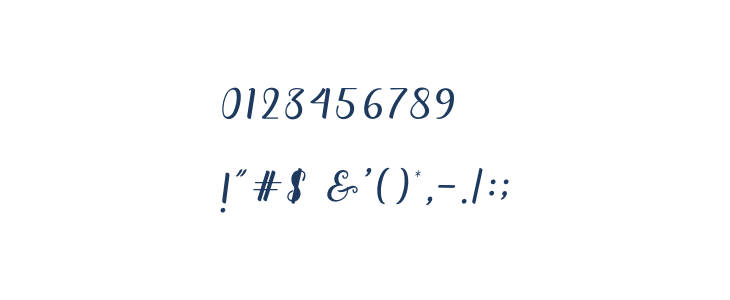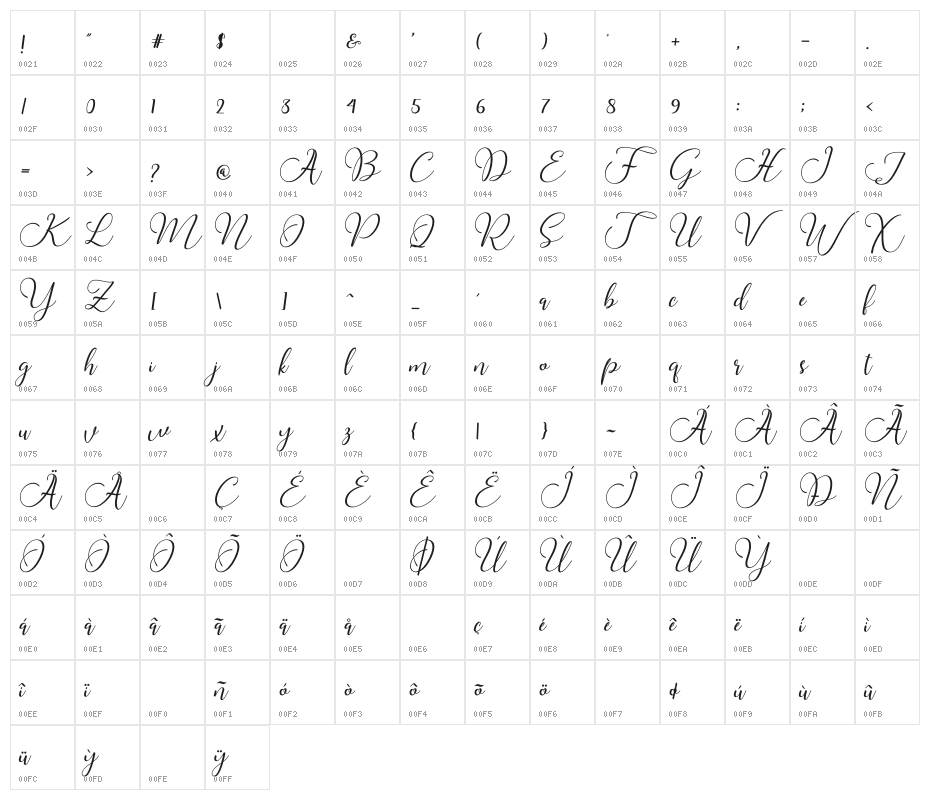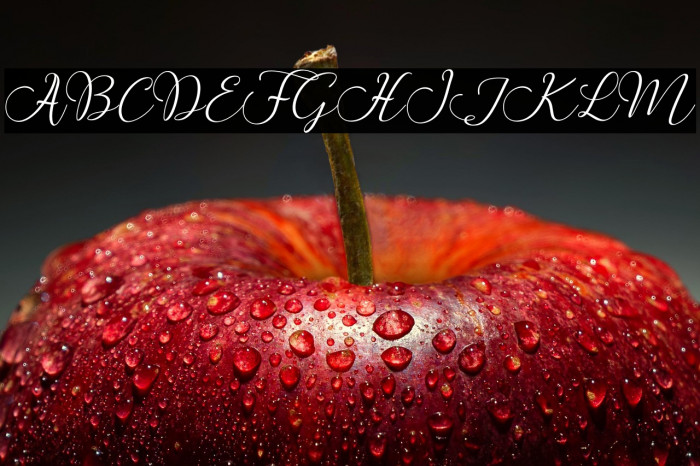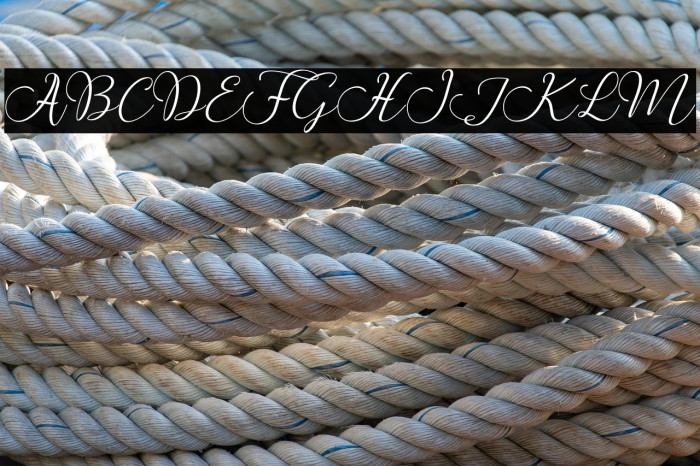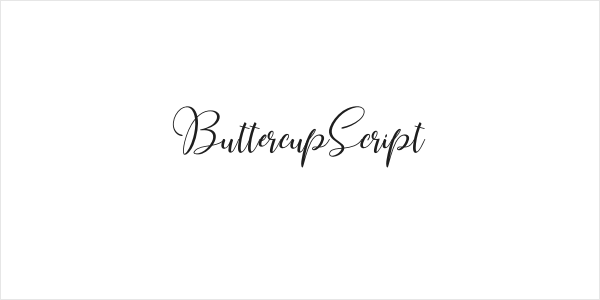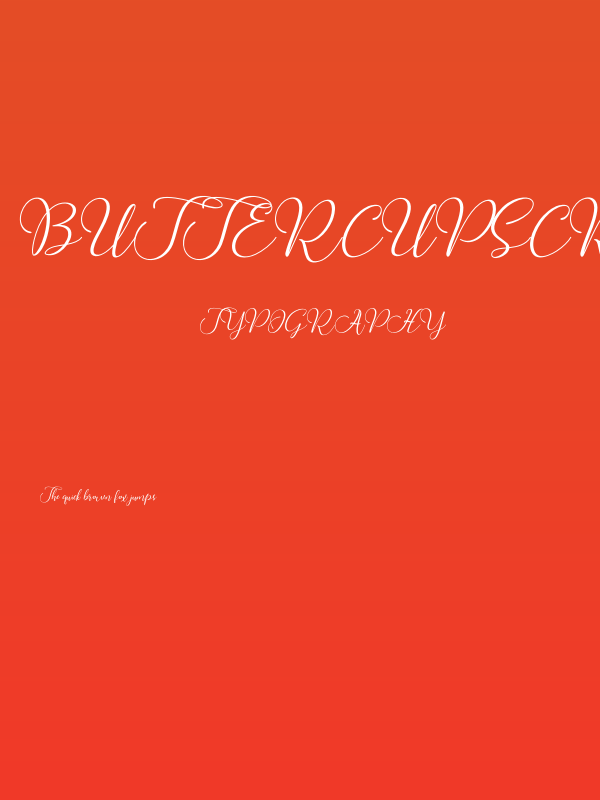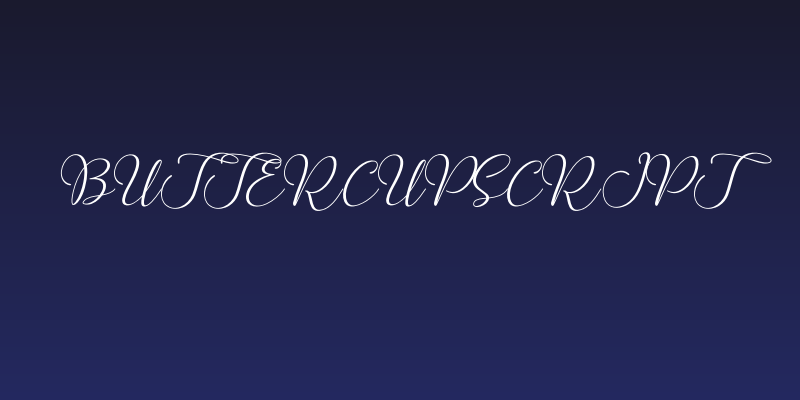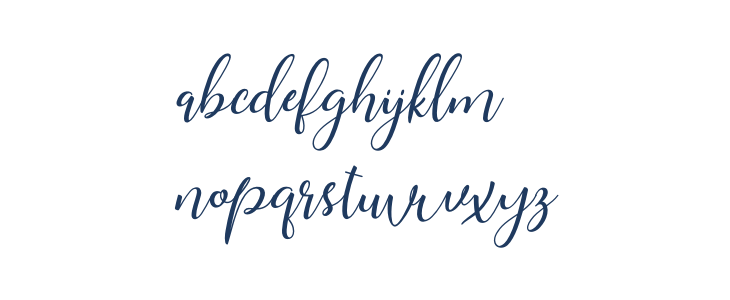
ButtercupScript Font
ButtercupScript Description
This elegant script font features flowing, cursive strokes that convey a sense of sophistication and grace. The uppercase letters are characterized by their intricate loops and swirls, creating a sense of movement and fluidity. The lowercase letters maintain a consistent style, with smooth connections between each character, enhancing readability while retaining a decorative flair. The numerals are clear and distinct, complementing the overall aesthetic of the font. Special characters are thoughtfully designed to match the script's ornate style, making it suitable for a variety of creative applications.
| Overall Style | Elegant, Decorative |
| Proposed Projects | Ideal for wedding invitations, greeting cards, branding, and elegant packaging designs. |